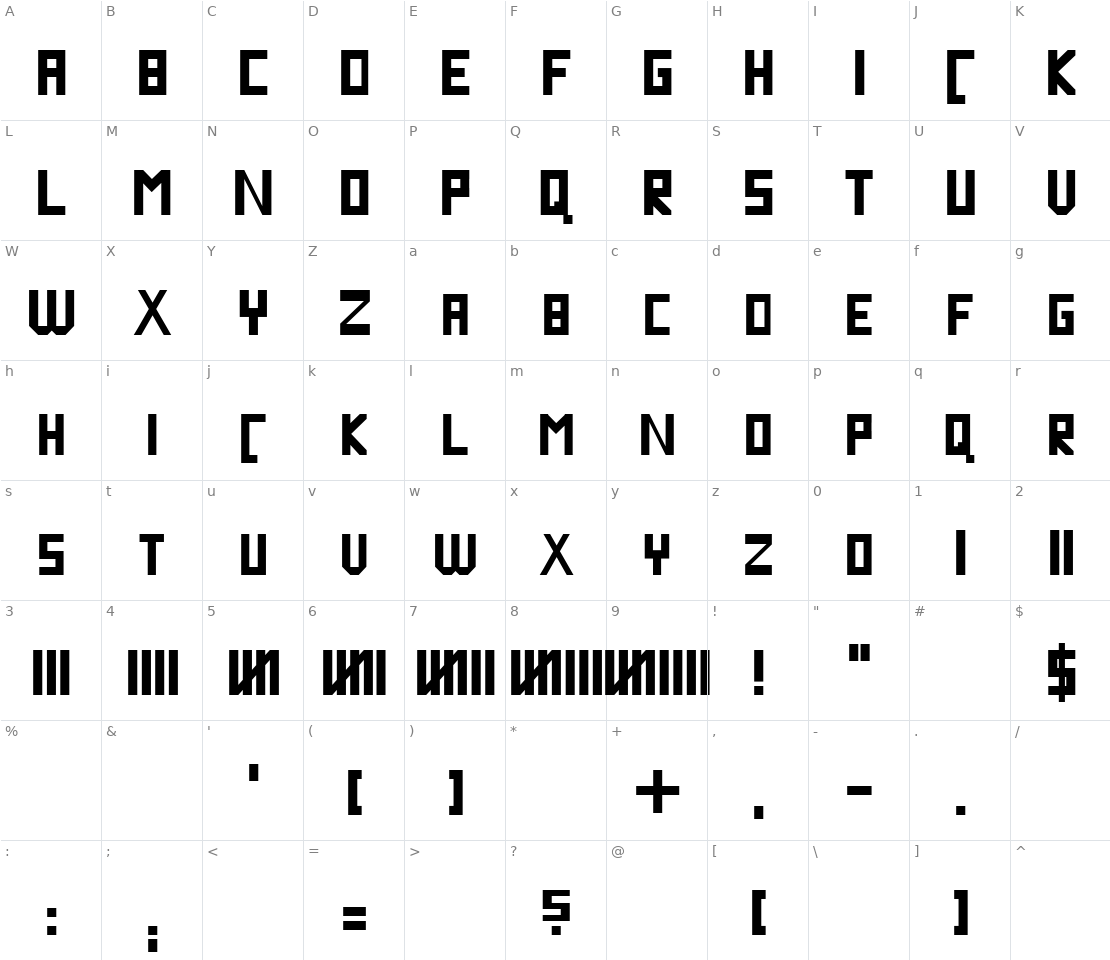
Blockline
Blockline is a heavy, condensed display face from loosydesign with dense, blocky letterforms that stack tight and hit hard. The uppercase-only character set and geometric construction give it a rigid, futuristic feel, like something stamped onto cargo containers or military hardware. Built for headlines, posters, and large-format signage where you need maximum impact in minimal space.